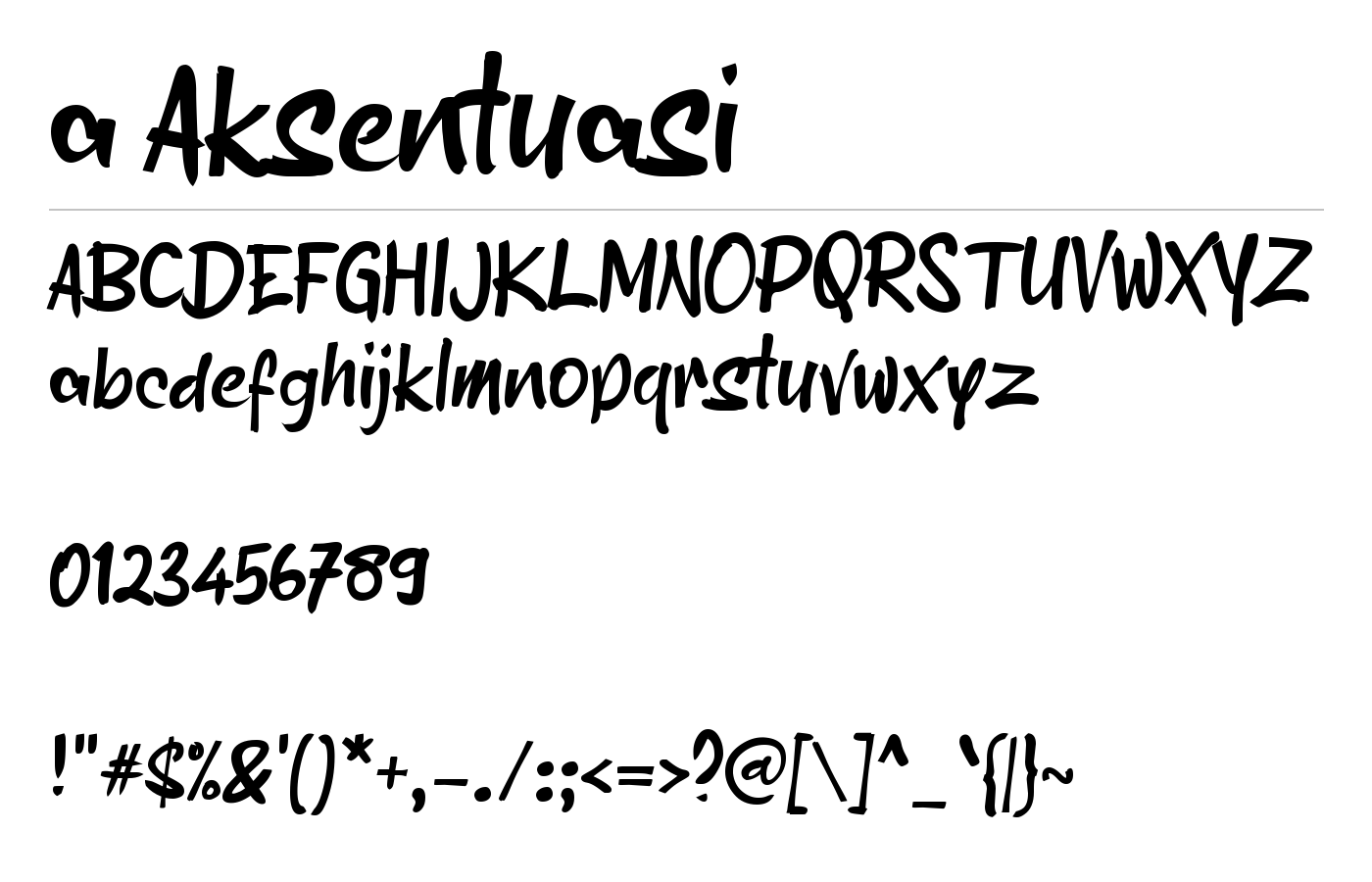
Aksentuasi is a playful, handwritten sans serif font with a lively and informal character. It features irregular, slightly condensed letterforms with medium contrast strokes and a casual, brush-like texture, making it feel warm and approachable. This font works wonderfully for creative branding, children's materials, posters, and any design needing a friendly, energetic vibe.
a Aksentuasi Font
About a Aksentuasi Font